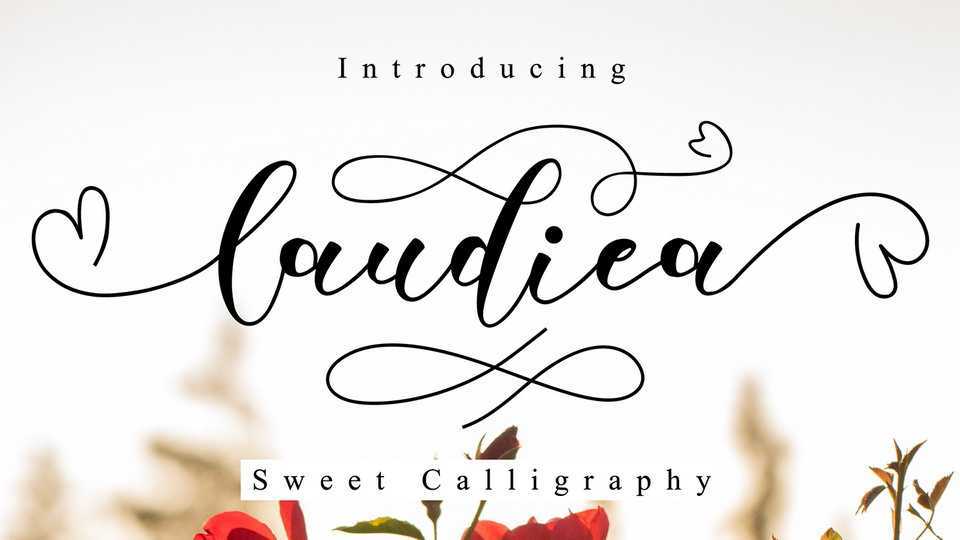
Download Laudiea font, a charming modern calligraphy script with a beautiful decorative characters. Laudiea font looks great for logos, branding, invitations, stationary, wedding designs, social media posts, and every other design which needs a handwritten touch.
Designer: Nissa Studio